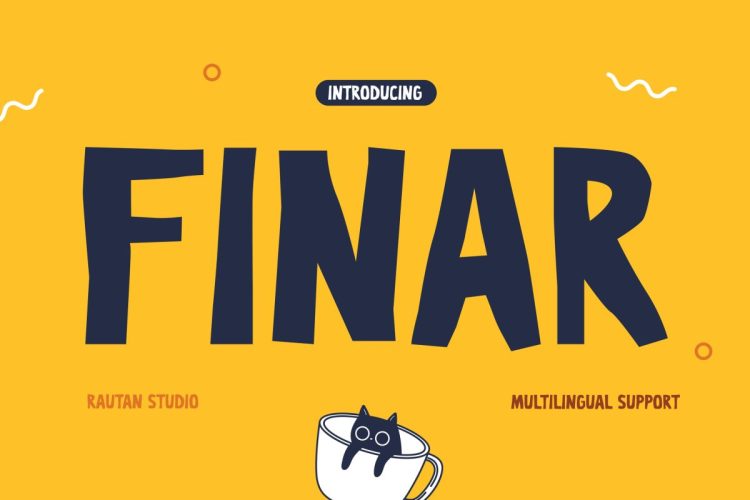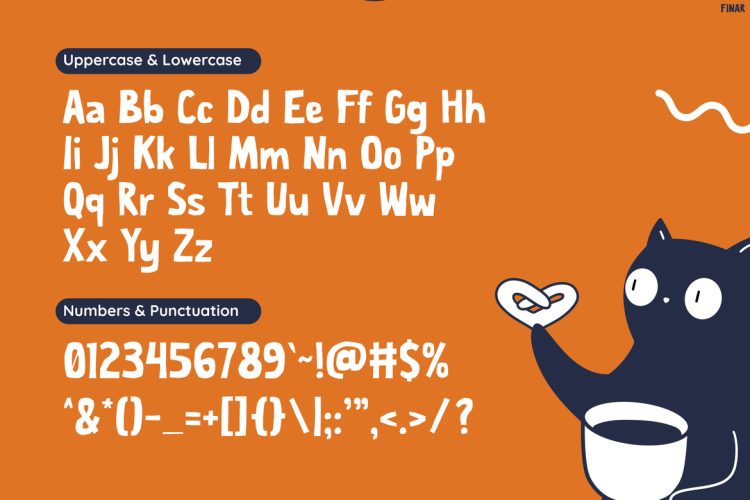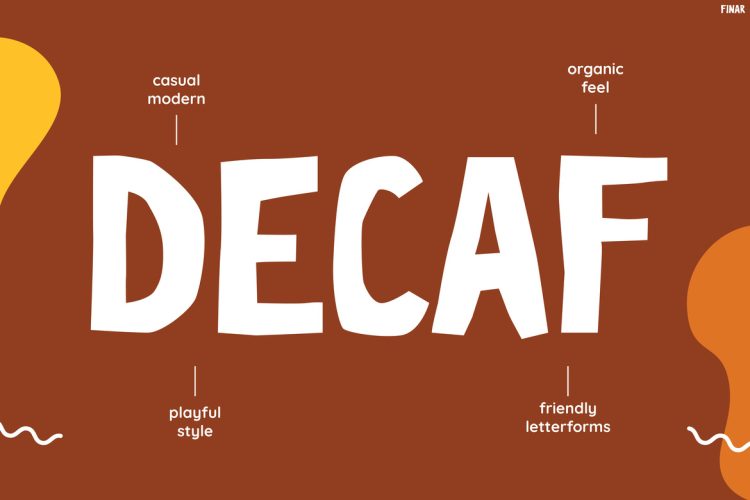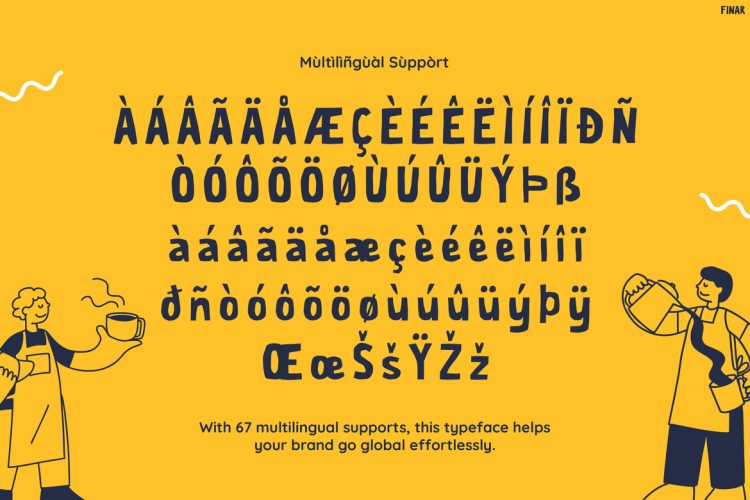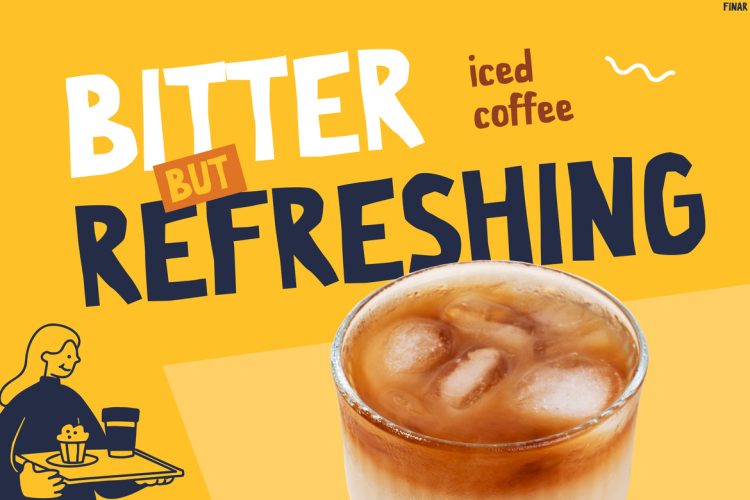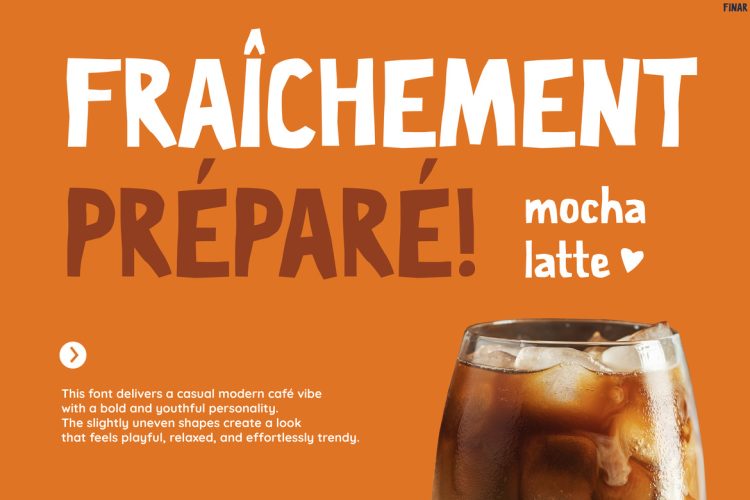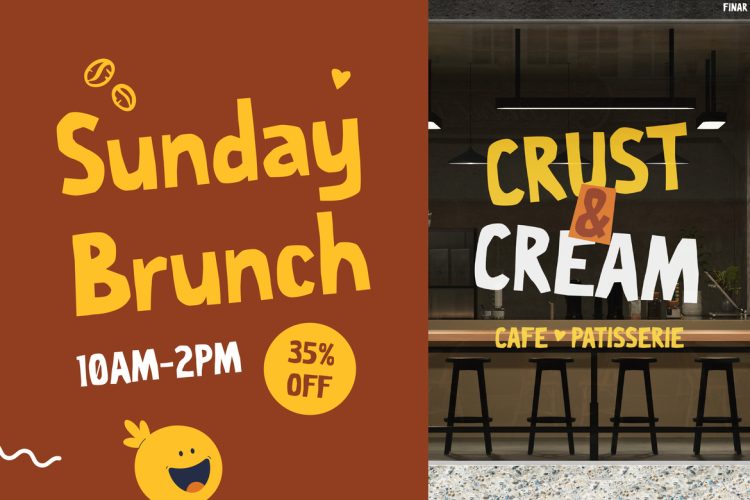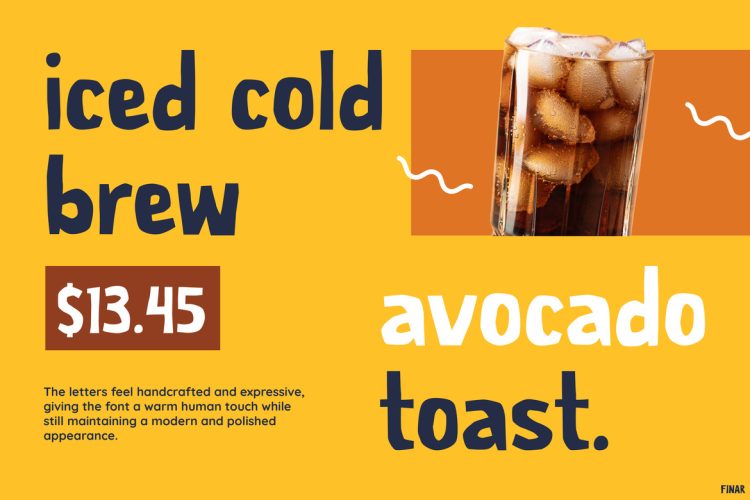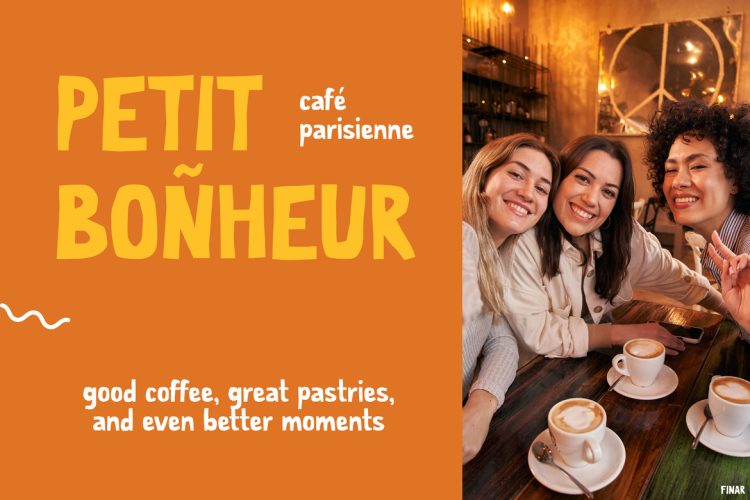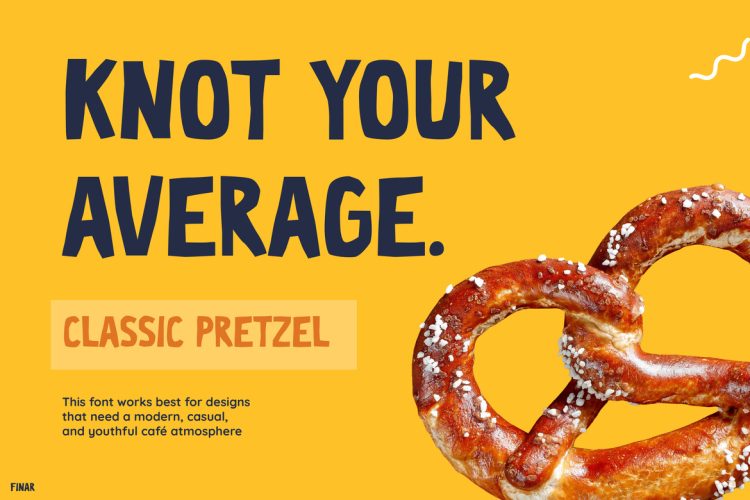
Instagram Font Finar โ Bold Retro Font That Makes Content Pop
Instagram Font Finar is a bold and playful display font designed to make every design instantly stand out. With its chunky letterforms, hand-drawn style, and retro cafรฉ-inspired aesthetic, this font creates a fun and energetic visual atmosphere from the very first glance. Moreover, the imperfect character shapes give every layout a more authentic and trendy personality. In addition, the thick typography keeps your text highly readable, so your headlines stay bold and eye-catching across both digital and print media. Because of its modern social-media vibe, Instagram Font Finar works perfectly for branding, cafรฉ promotions, packaging, and stylish online content. Furthermore, the playful structure helps your typography feel more dynamic, youthful, and visually memorable. At the same time, the quirky handmade appearance gives your projects a more fresh and creative mood. Even better, this font includes Multilingual Support for 67 Languages, so you can easily create global-ready content without limitations.
Why Instagram Font Finar Looks So Trendy
Instagram Font Finar combines retro typography with modern social-media energy. As a result, every word feels expressive, bold, and full of personality. Not only does the font add a fun handmade touch, but it also improves the overall visual appeal with its thick and playful styling. Additionally, the strong readability makes it ideal for promotional designs, catchy headlines, and branding content. Meanwhile, the rough and imperfect character details keep every design feeling more natural and engaging. Whether you are creating cafรฉ menus, Instagram posts, food branding, or lifestyle promotions, this font helps every project feel more exciting and visually powerful. Likewise, the bold retro aesthetic instantly attracts attention while still keeping your layouts stylish and easy to read.
- Instagram posts and reels
- Cafรฉ branding and menus
- Food packaging
- Coffee shop promotions
- Social media graphics
- Posters and flyers
- Merchandise and apparel
- Restaurant branding
- Creative advertisements
- Trendy packaging designs
Make Your Designs Hit Harder